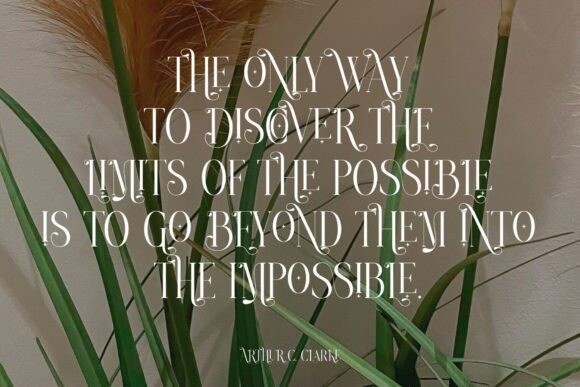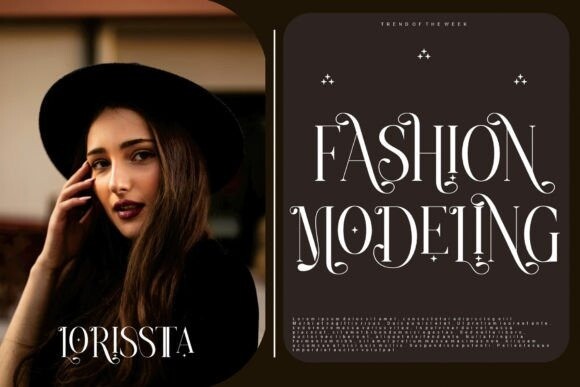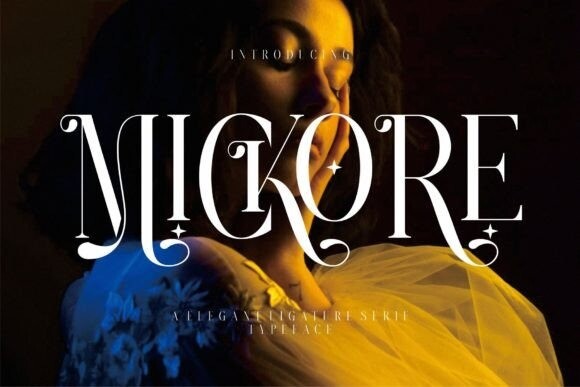
Mickore Font
Mickore Font a stylish serif font, captivates with its unique design, blending modern aesthetics with timeless sophistication. The distinctive serifs and graceful letterforms exude a sense of refinement, making it an ideal choice for projects that demand a touch of sophistication and contemporary elegance., a stylish serif font, captivates with its unique design, blending modern aesthetics with timeless sophistication. The distinctive serifs and graceful letterforms exude a sense of refinement, making it an ideal choice for projects that demand a touch of sophistication and contemporary elegance.